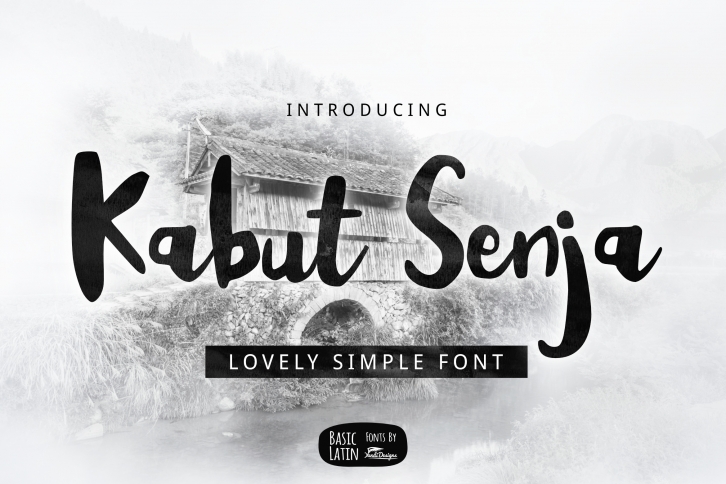
Kabut Senja Brush Font Download
Kabut Senja Brush is a gorgeous font that was realeased on August 21, 2019. The font can be used in many style contexts and design environments. Perfect for invitations, magazines, websites, logos, and more! It was designed by YandiDesigns and the file size is 12.4 MB. Thanks for checking out this font!